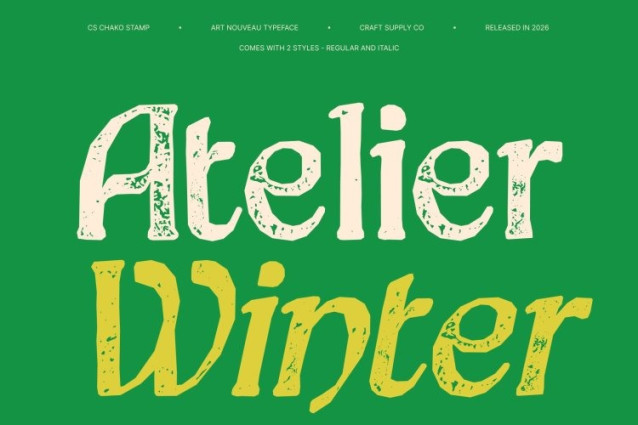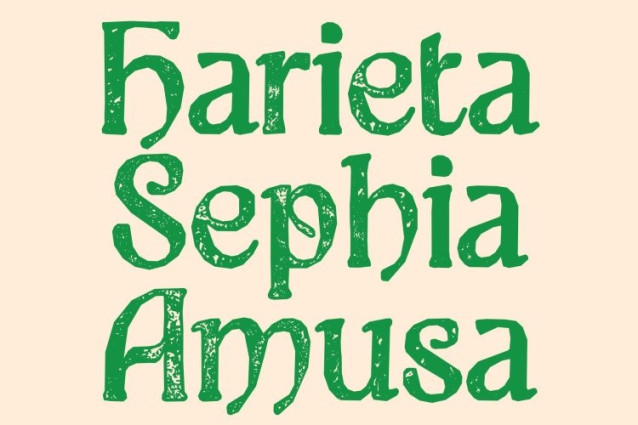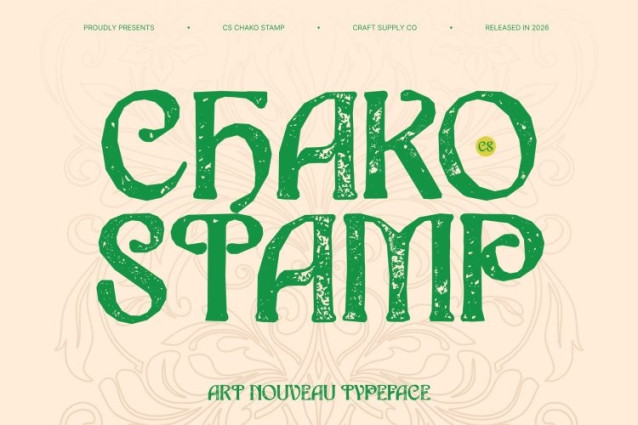
CS Chako Stamp Font – This is a refined serif font that channels the graceful beauty of Art Nouveau. Its flowing lines, elegant curves, and nature-inspired decorative details reminiscent of flowers, leaves, and organic forms create a timeless and artistic appearance. The stamp effect adds subtle texture, giving the font a handcrafted, vintage character that enhances its visual charm.
Sophisticated and Versatile
Designed for projects that demand elegance and artistry, this font works beautifully in wedding invitations, luxury branding, editorial layouts, and decorative packaging. Its refined structure ensures readability while the artistic flourishes elevate the design with sophistication.
Nature-Inspired Details with Timeless Appeal
The font’s organic, decorative motifs offer a harmonious blend of classical inspiration and modern design. The stamp texture adds depth, making each letter feel tactile and artisanal without losing clarity. This combination creates a visually captivating typeface suitable for high-end, graceful projects.
Elevate Your Designs with Artistic Elegance
This font transforms text into an expressive work of art. Its fusion of Art Nouveau elegance, modern serif precision, and vintage stamp texture ensures your designs convey style, sophistication, and timeless beauty, perfect for creating memorable, high-impact visuals.